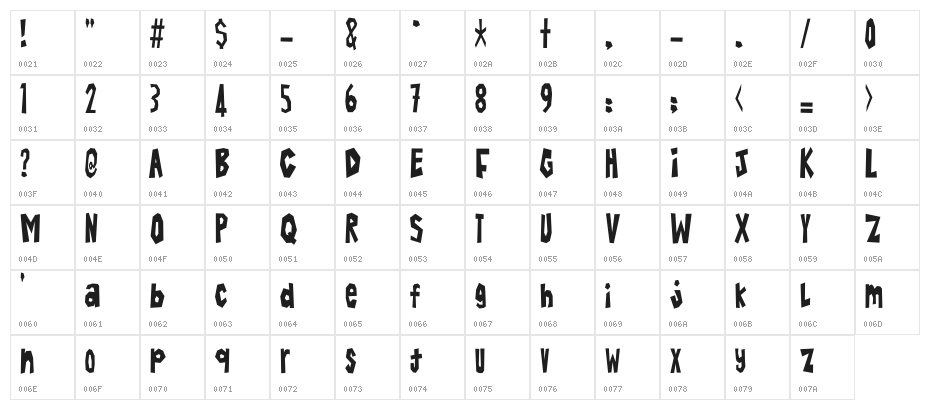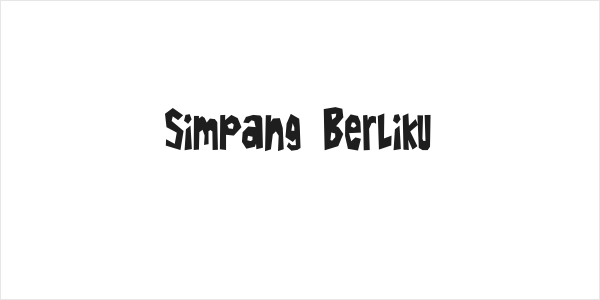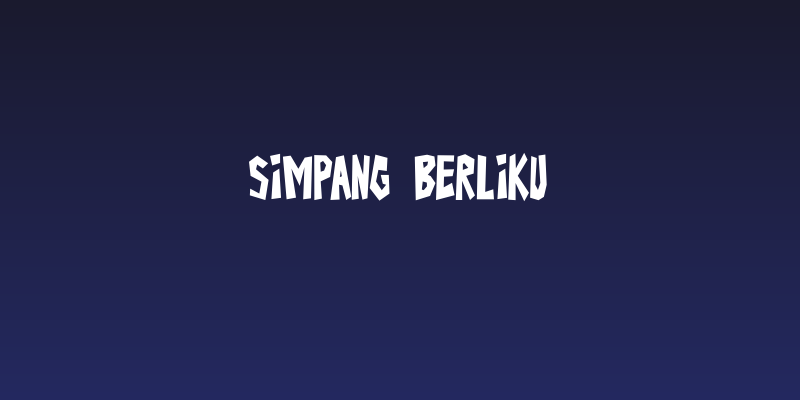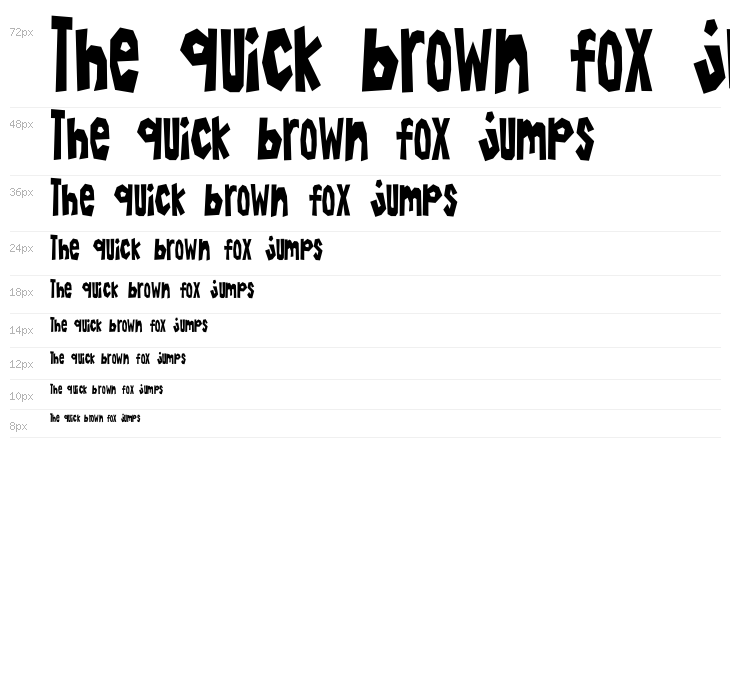
Simpang Berliku Font
This font features a bold and dynamic style with an angular, geometric design. The characters are uniquely shaped with sharp edges and varying widths, creating a sense of movement and energy. The uppercase and lowercase letters maintain a consistent style, while the numbers and special characters complement the overall aesthetic. The font's boldness and distinctiveness make it stand out, suitable for eye-catching designs.
| Proposed Projects | Ideal for posters, album covers, branding projects, and any design that requires a bold statement. |